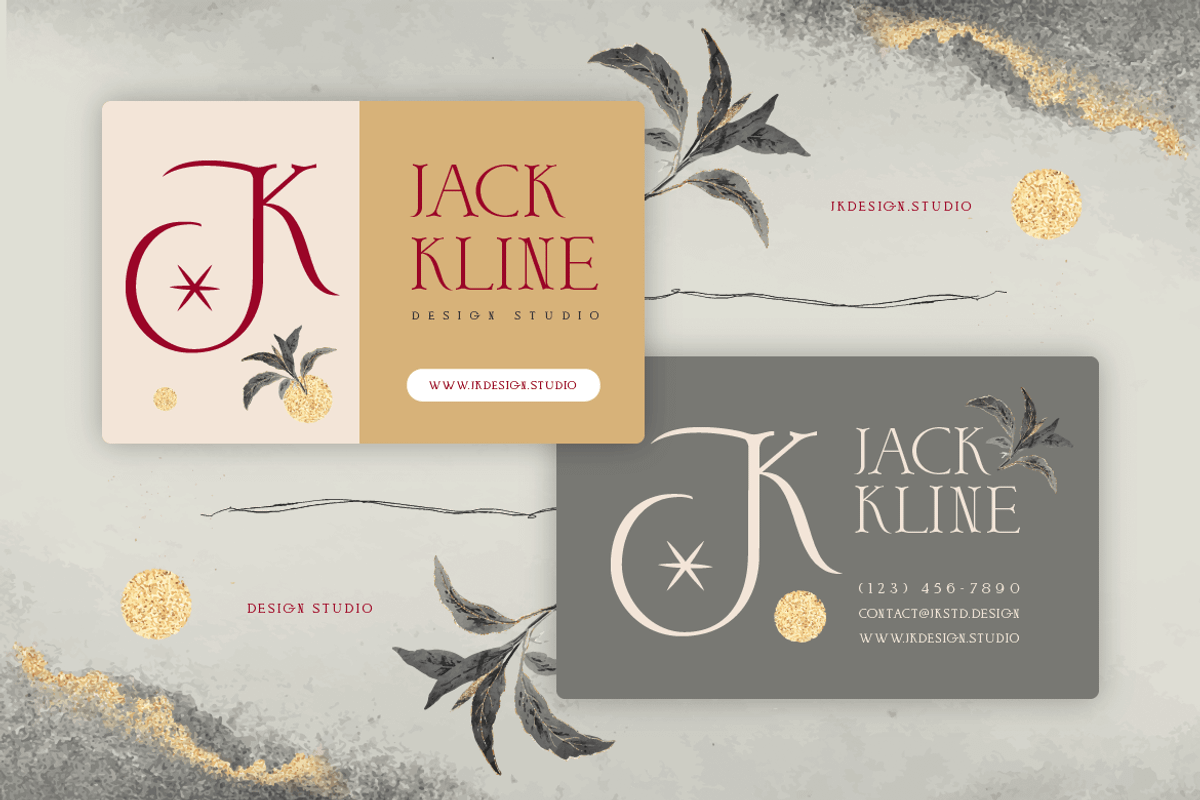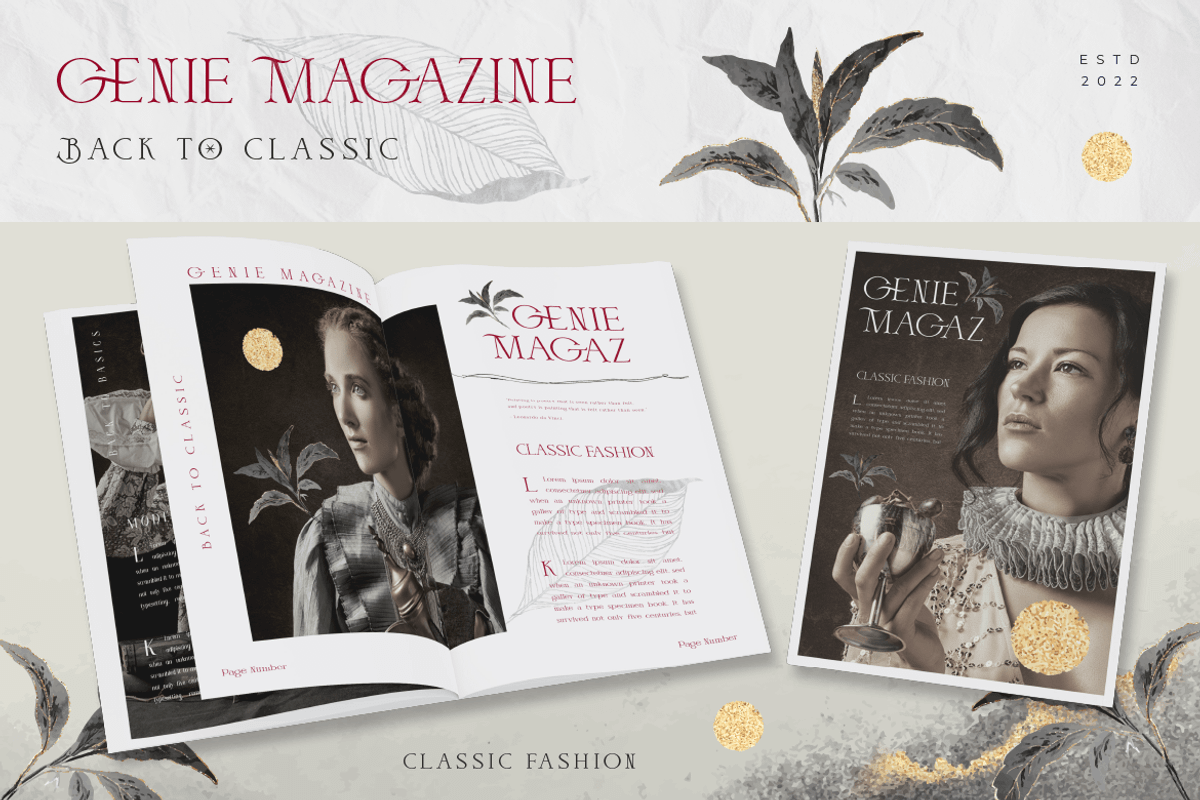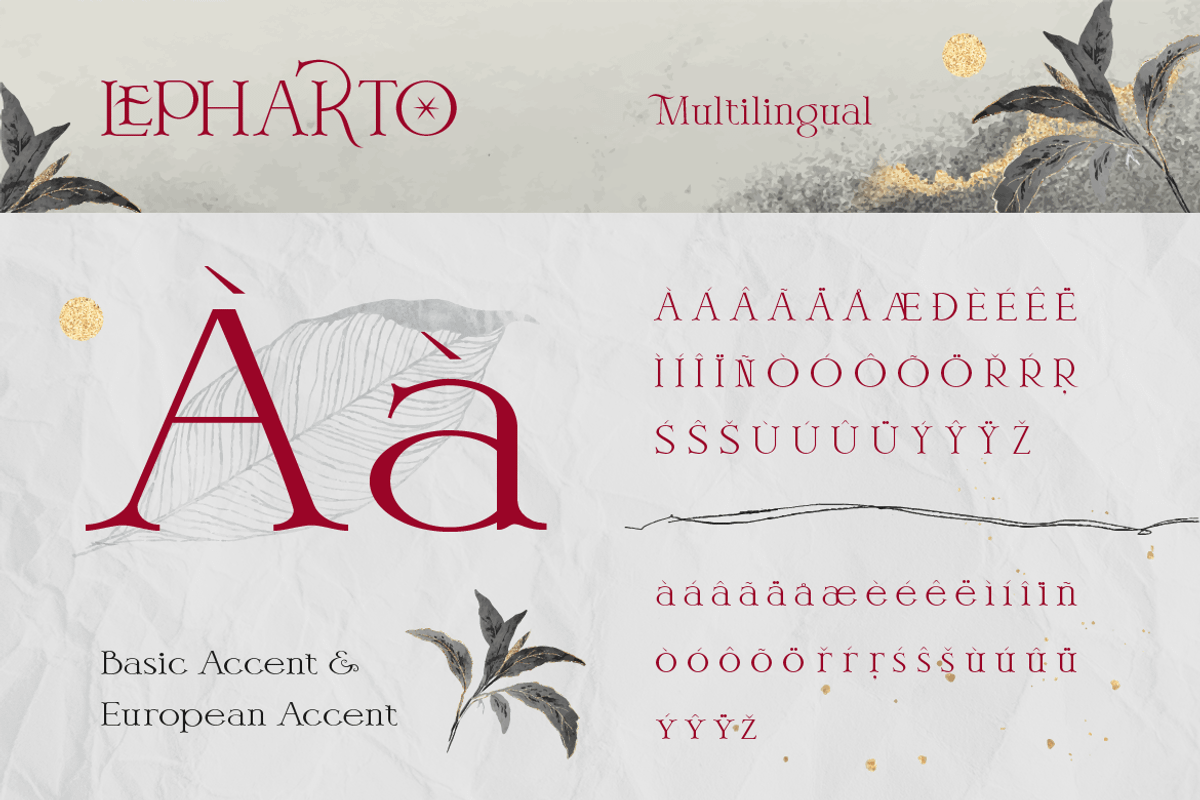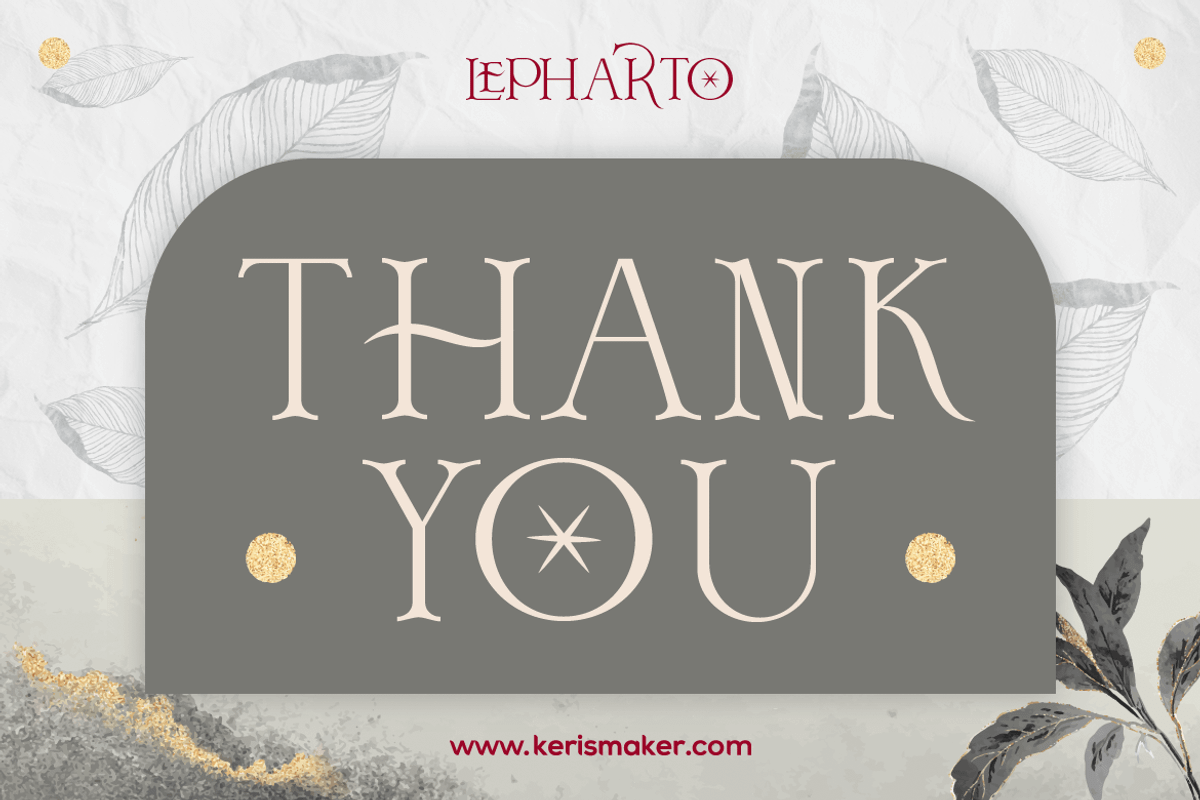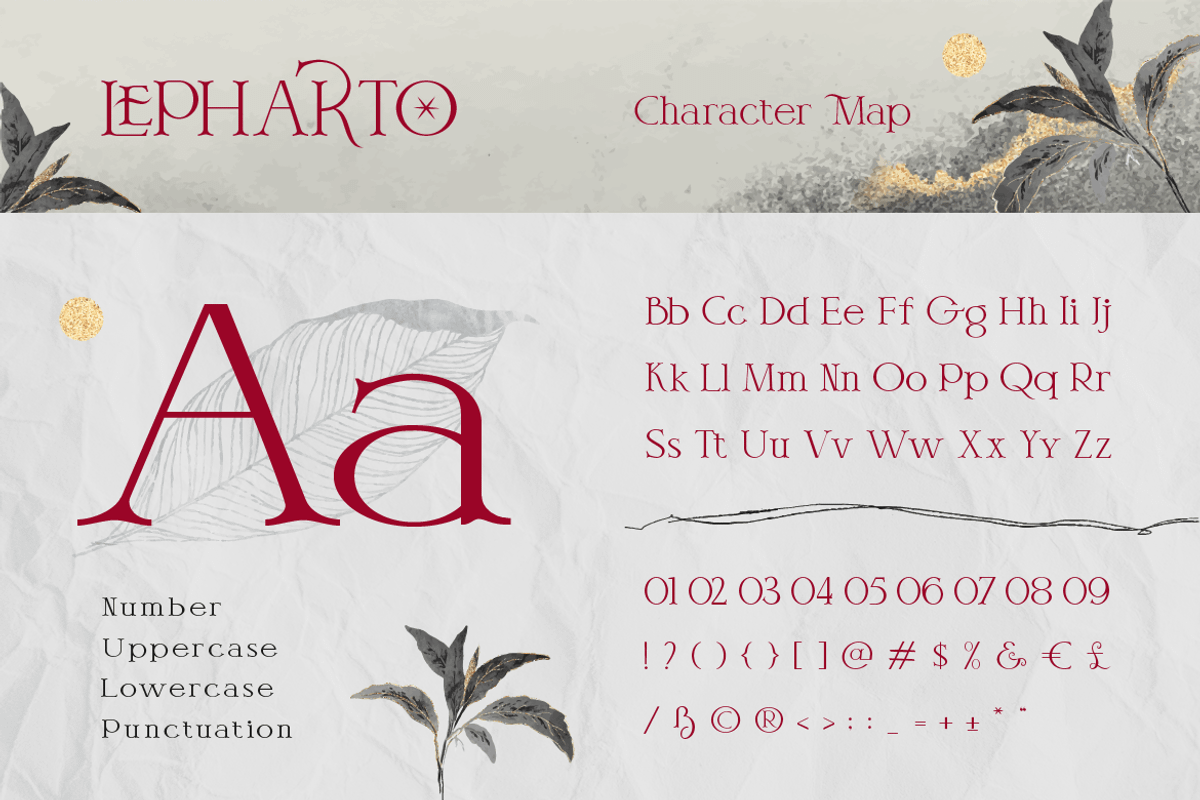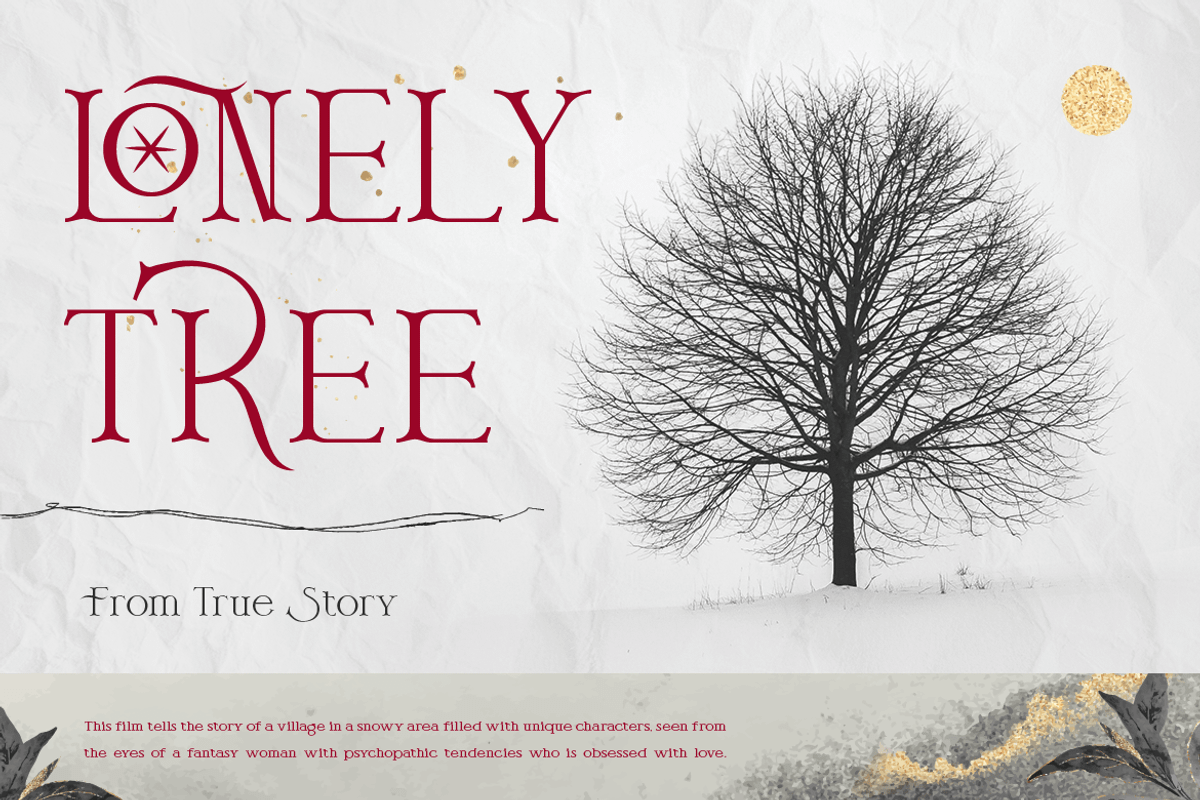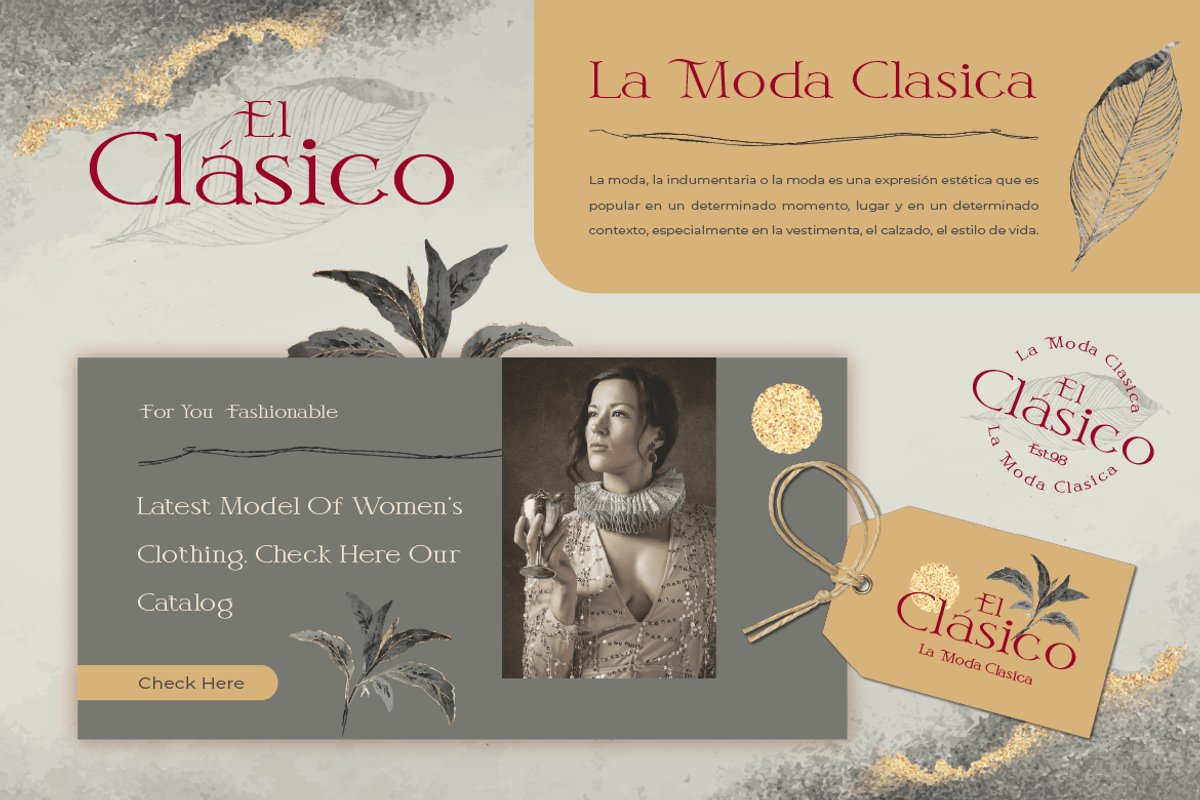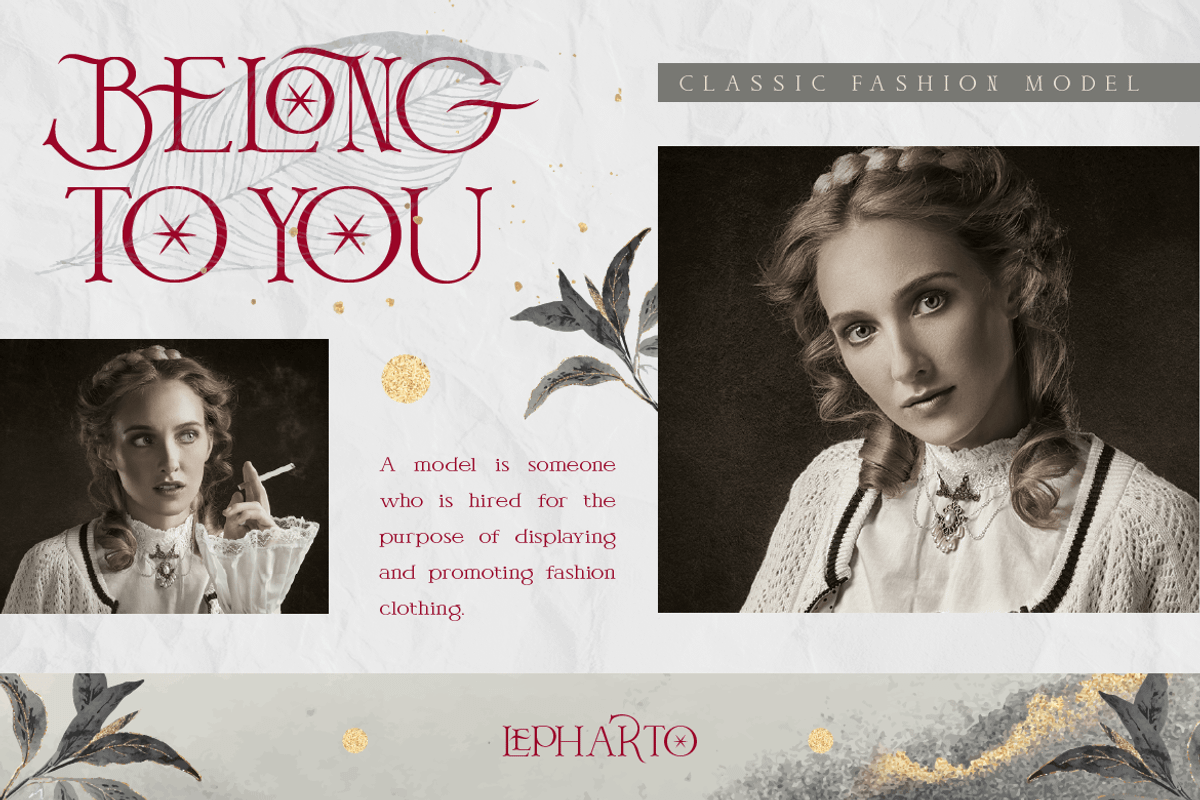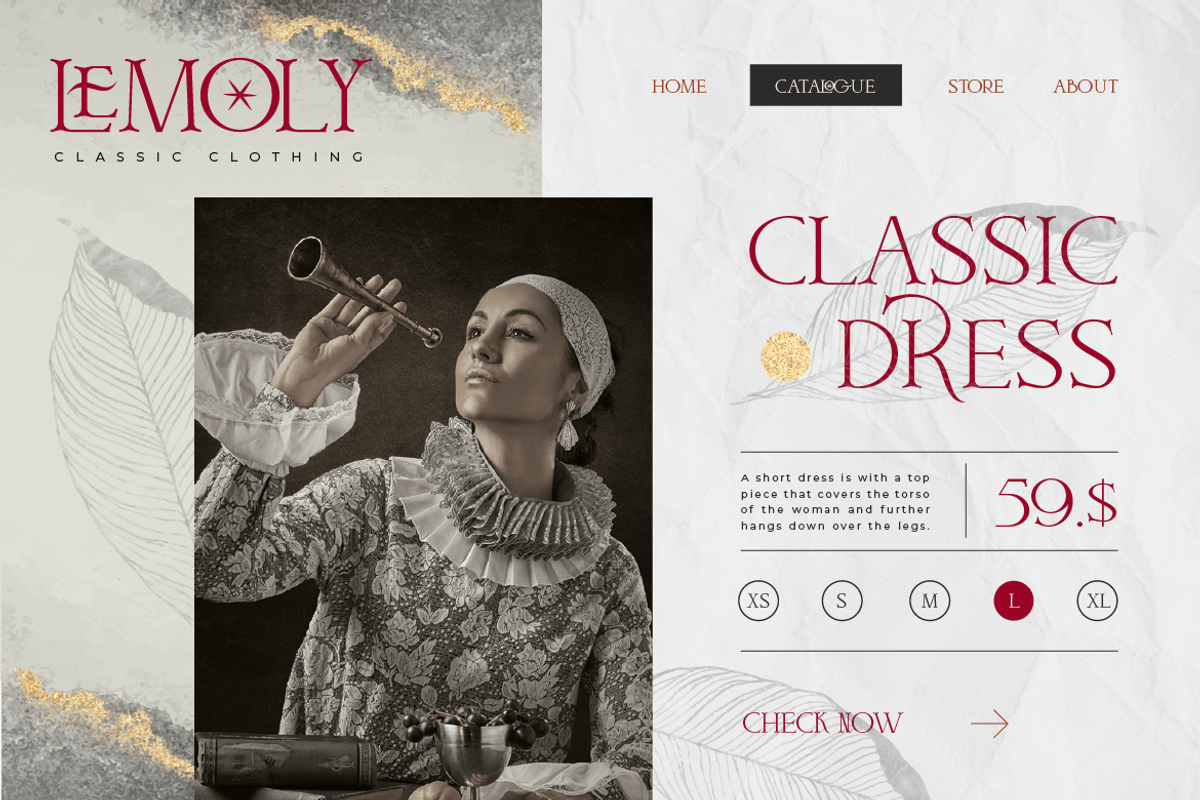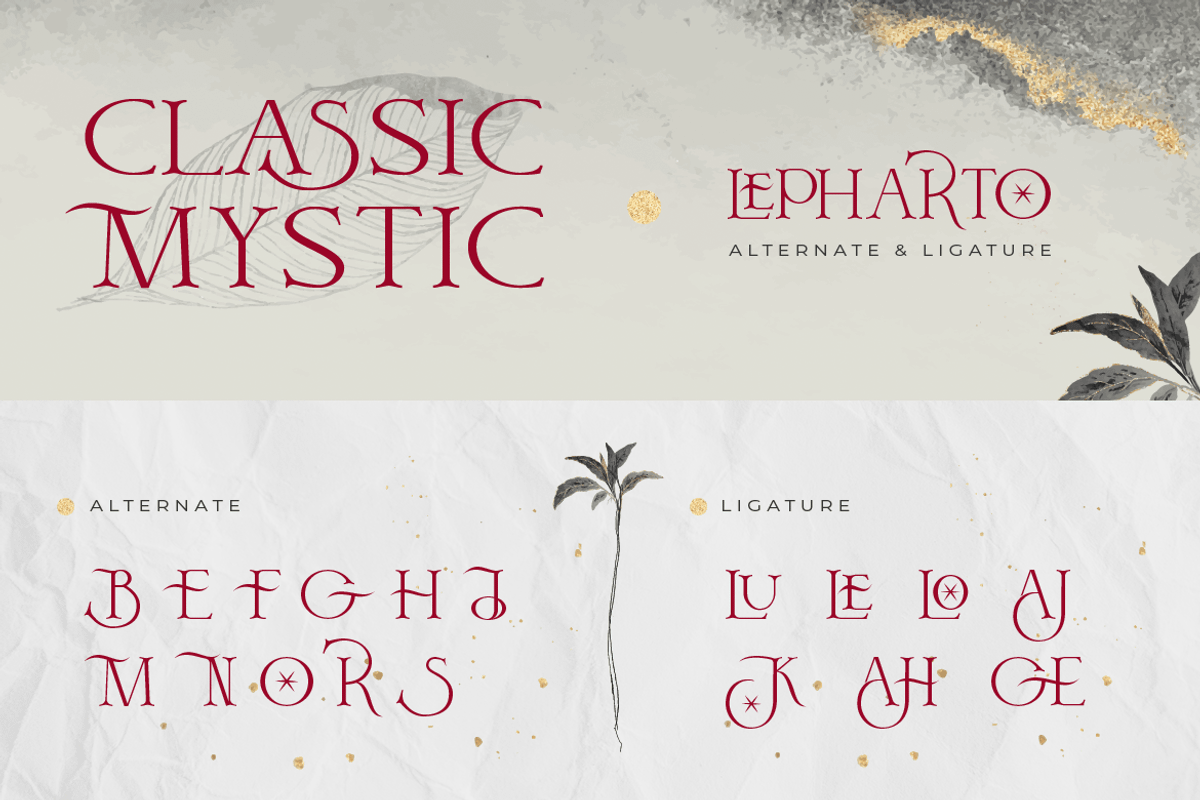
Lepharto
Lepharto Is a modern classic mystic with a classic serif style. This font is good for logo design, Social media, Movie Titles, Books Titles, short text even long text letters, and good for your secondary text font with sans or serif.
- Standard Uppercase & Lowercase
- Multilingual : ä ö ü Ä Ö Ü ß ¿ ¡
- Alternate & Ligature